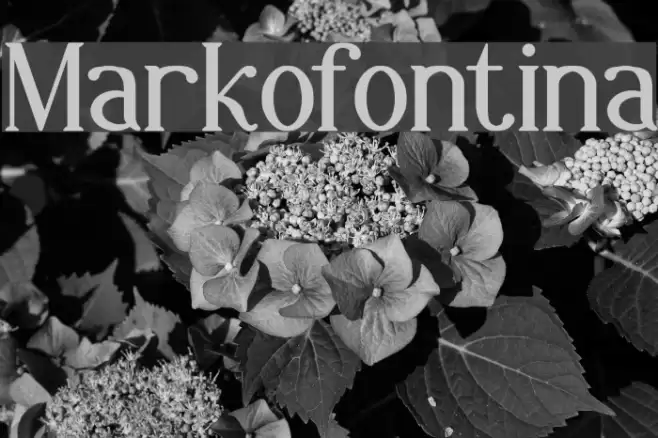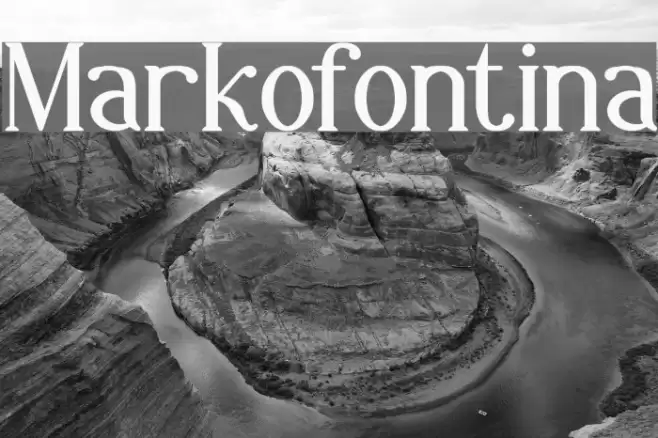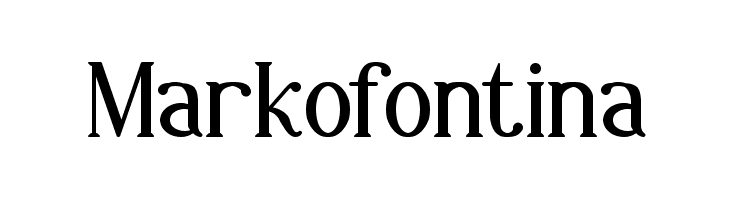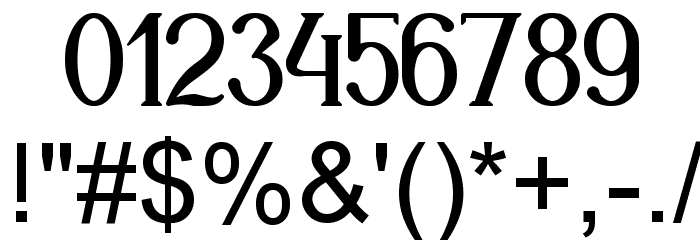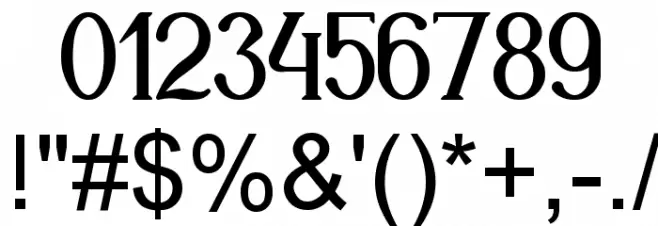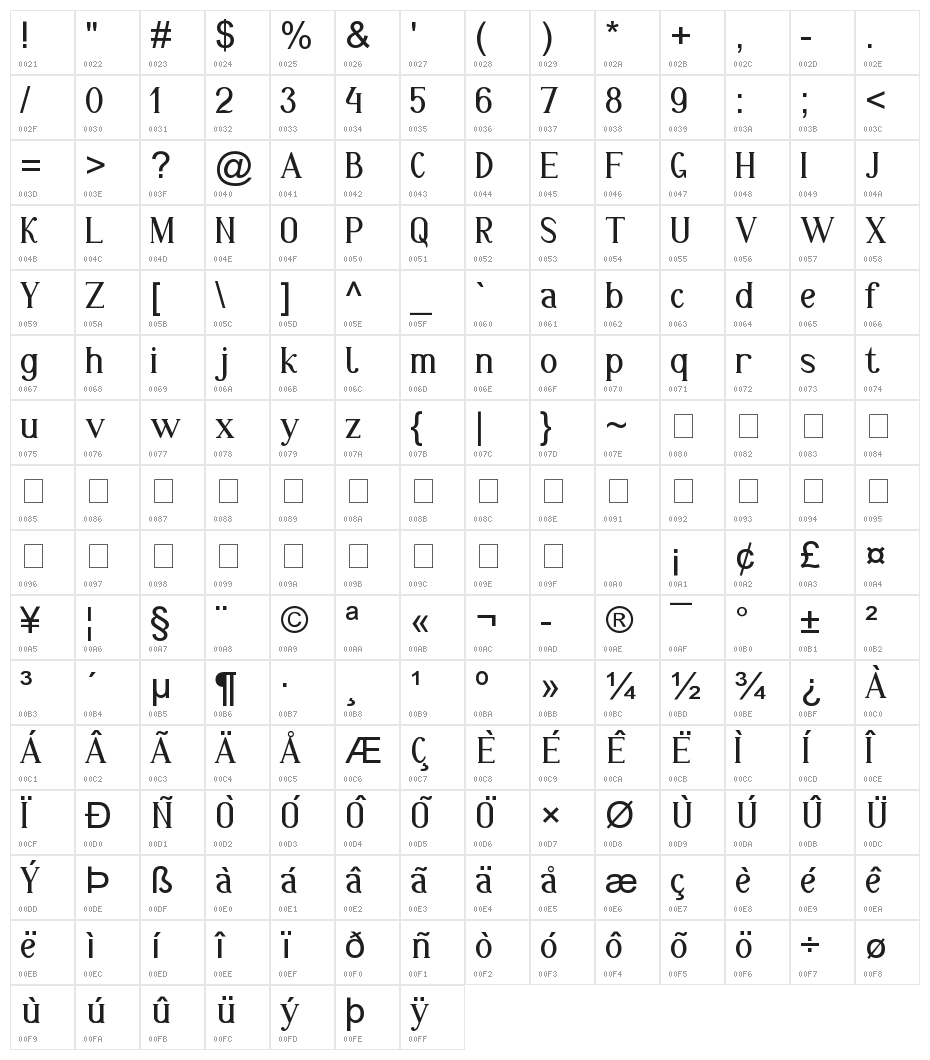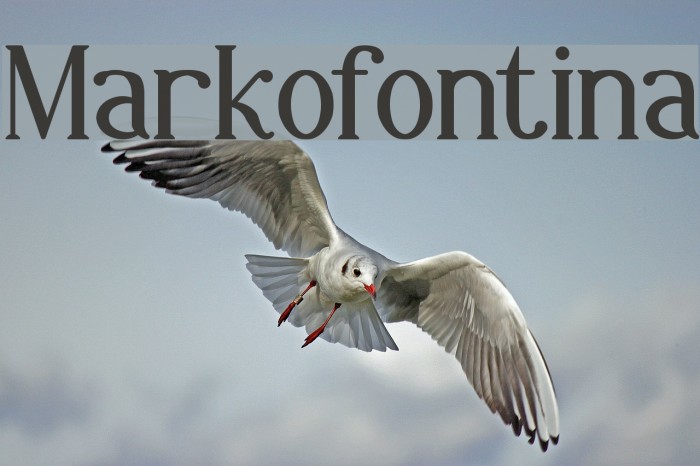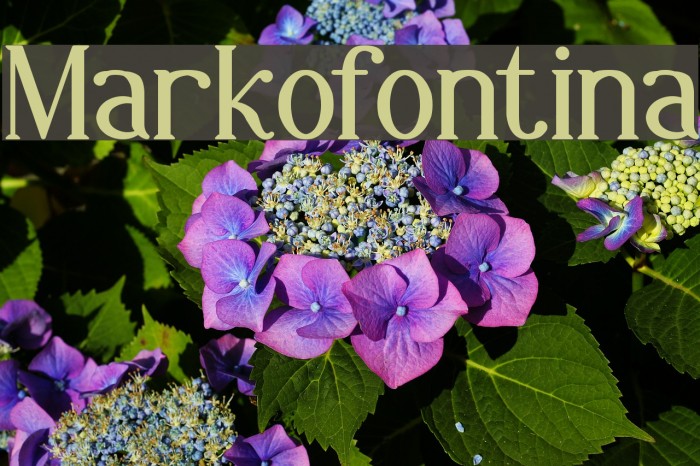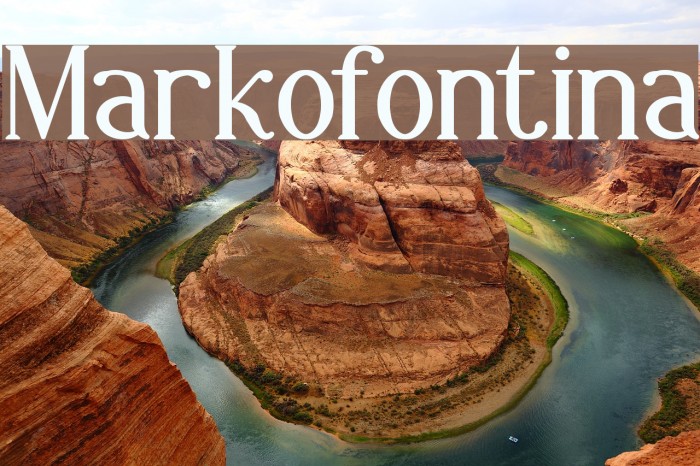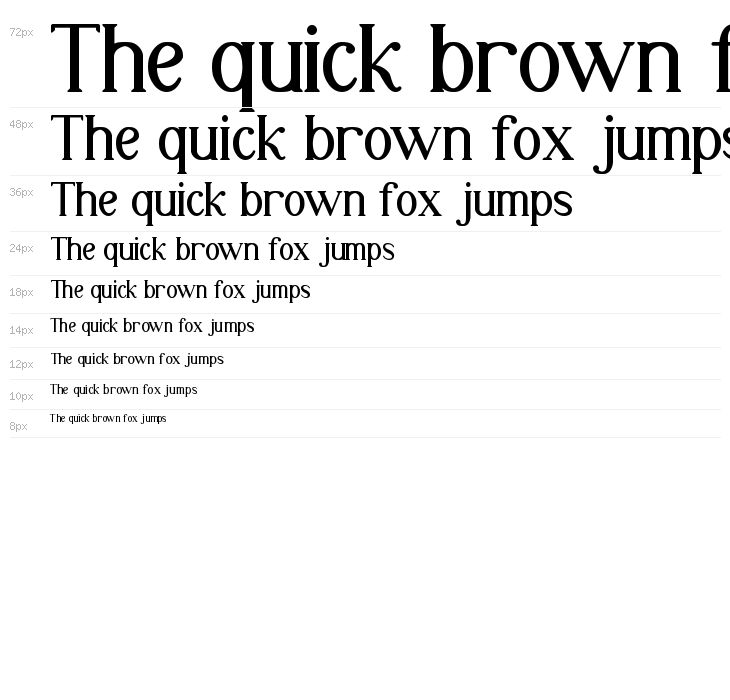
Markofontina Font
Markofontina Description
This font features a classic serif style with elegant and slightly elongated serifs. The uppercase letters are tall and commanding, while the lowercase letters maintain a balanced and readable form. The numerals are distinct and clear, with a traditional appearance that complements the overall design. Special characters are well-integrated, maintaining the font's cohesive aesthetic. The strokes exhibit a medium contrast, providing a sophisticated yet approachable look. This font is versatile, suitable for both formal and creative applications, offering a timeless appeal.
A classic serif font with elegant serifs and medium contrast, suitable for formal and creative uses from Serif fonts.
- Proposed Projects: Ideal for book covers, editorial design, branding projects, and elegant invitations.
- Overall Style: Classic